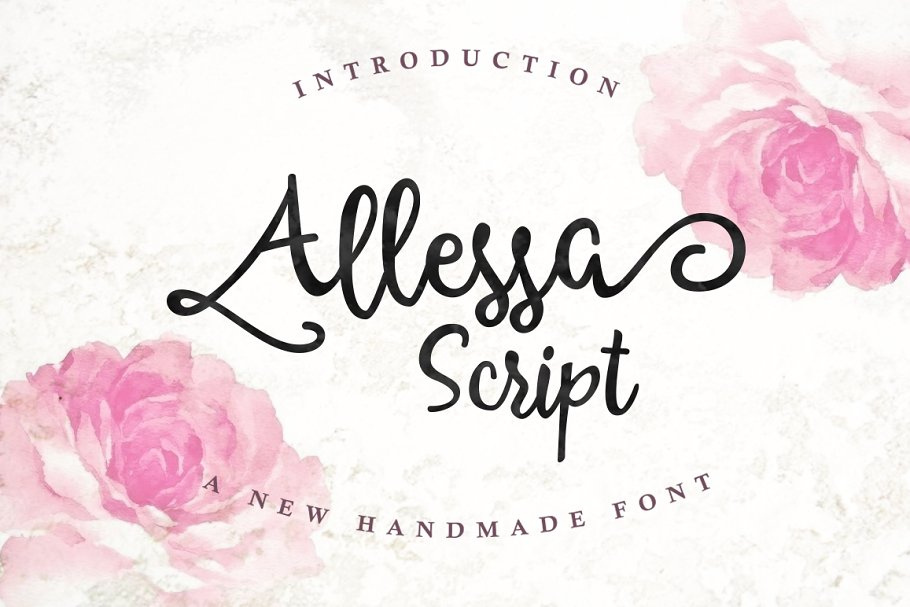
Allessa Script Font
Allessa Script Font is perfect for elegant wedding invitations, luxury fashion branding, sophisticated beauty campaigns, high-end boutique signage, refined greeting cards, upscale restaurant menus, premium lifestyle magazines, exclusive event materials, cultured hospitality branding, and graceful personal stationery.
Allessa Script Font is exciting because it masterfully captures the essence of refined elegance and timeless sophistication, creating a script typeface that embodies grace, luxury, and the cultivated beauty of classical femininity. This font brings sophisticated charm and elegant refinement to any project, making it ideal for luxury brands that want to convey exclusivity, taste, and the effortless elegance of refined living. Its graceful character and sophisticated appeal create an atmosphere of cultured luxury that resonates with discerning audiences who appreciate timeless beauty and elegant expression.
Allessa Script Font family includes regular, medium, and bold weights, plus elegant swashes, sophisticated flourishes, and refined ornamental elements, providing designers with comprehensive tools for creating luxurious script typography and elegantly sophisticated brand experiences.
This distinguished elegant script typeface combines classical calligraphy traditions with contemporary luxury aesthetics, making Allessa Script Font Free Download a premium choice for projects celebrating refined sophistication and timeless elegance. The font's beautifully crafted letterforms feature graceful proportions and sophisticated styling that reflect the artistry of fine penmanship and the cultivated taste of luxury living.
Whether you're designing luxury fashion campaigns, sophisticated hospitality branding, or elegant event materials, Allessa Script Font delivers unmatched sophisticated authenticity and refined appeal. The font performs magnificently across both intimate luxury applications and grand scale environments where elegance and sophistication create memorable premium experiences.
Luxury brand professionals choose Allessa Script Font for its ability to instantly communicate refined elegance and sophisticated taste while creating emotional connections with affluent audiences seeking authentic luxury experiences. The font's graceful character makes it particularly effective for luxury hotels, high-end fashion houses, and sophisticated lifestyle brands.
Each character reflects the flowing artistry of elegant penmanship, featuring graceful curves and sophisticated proportions that create typography as beautiful and refined as silk scarves, fine jewelry, and the most elegant luxury experiences.